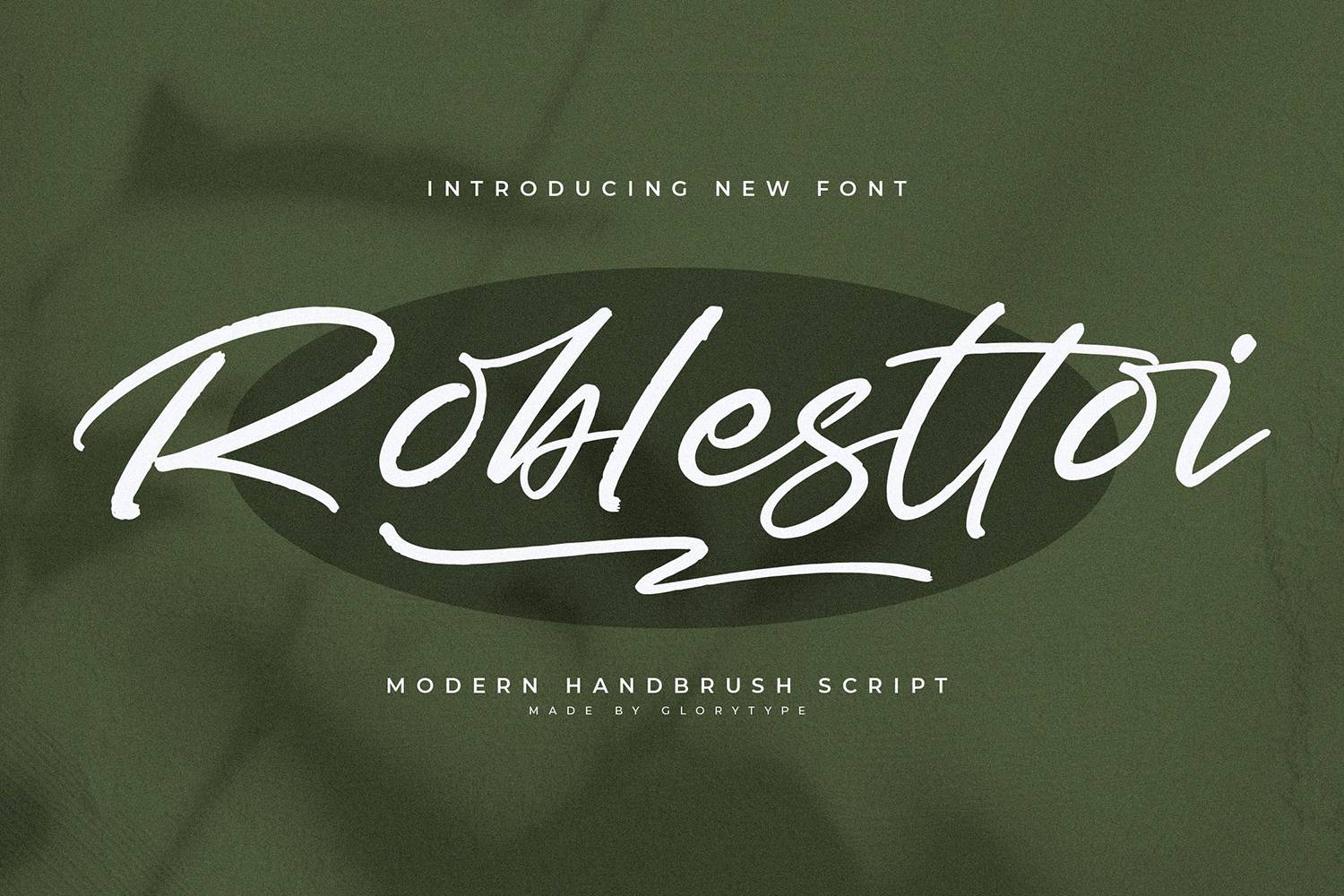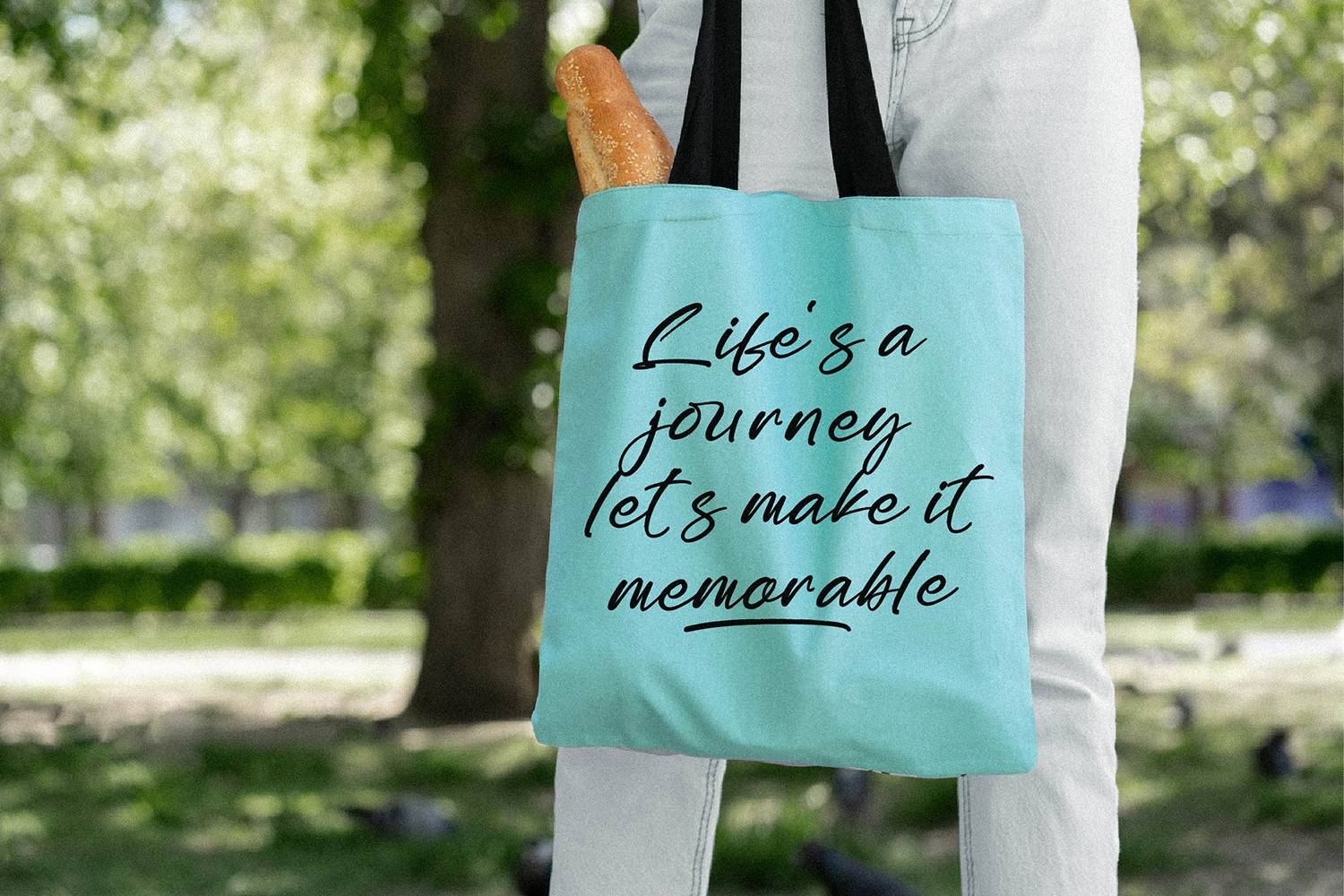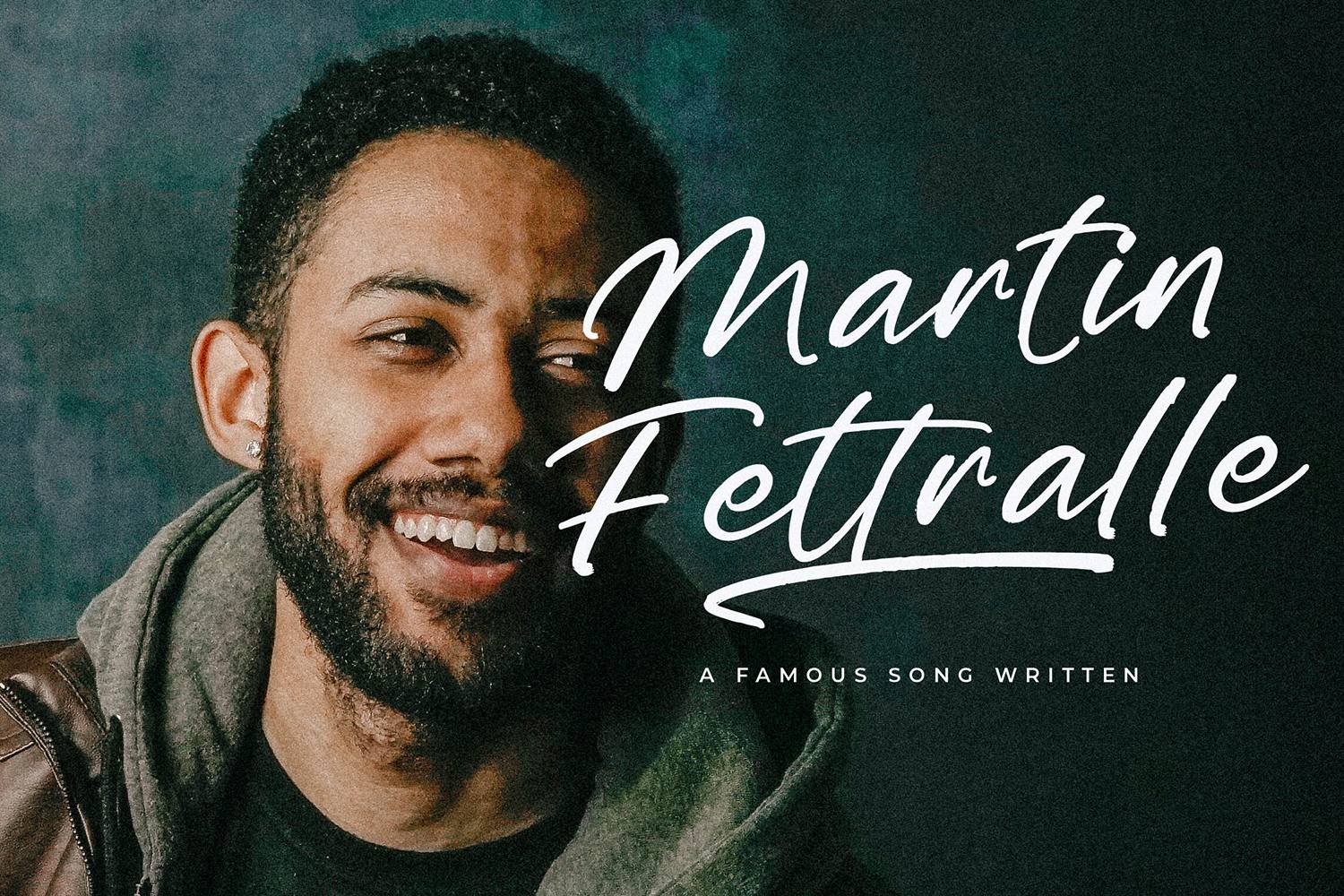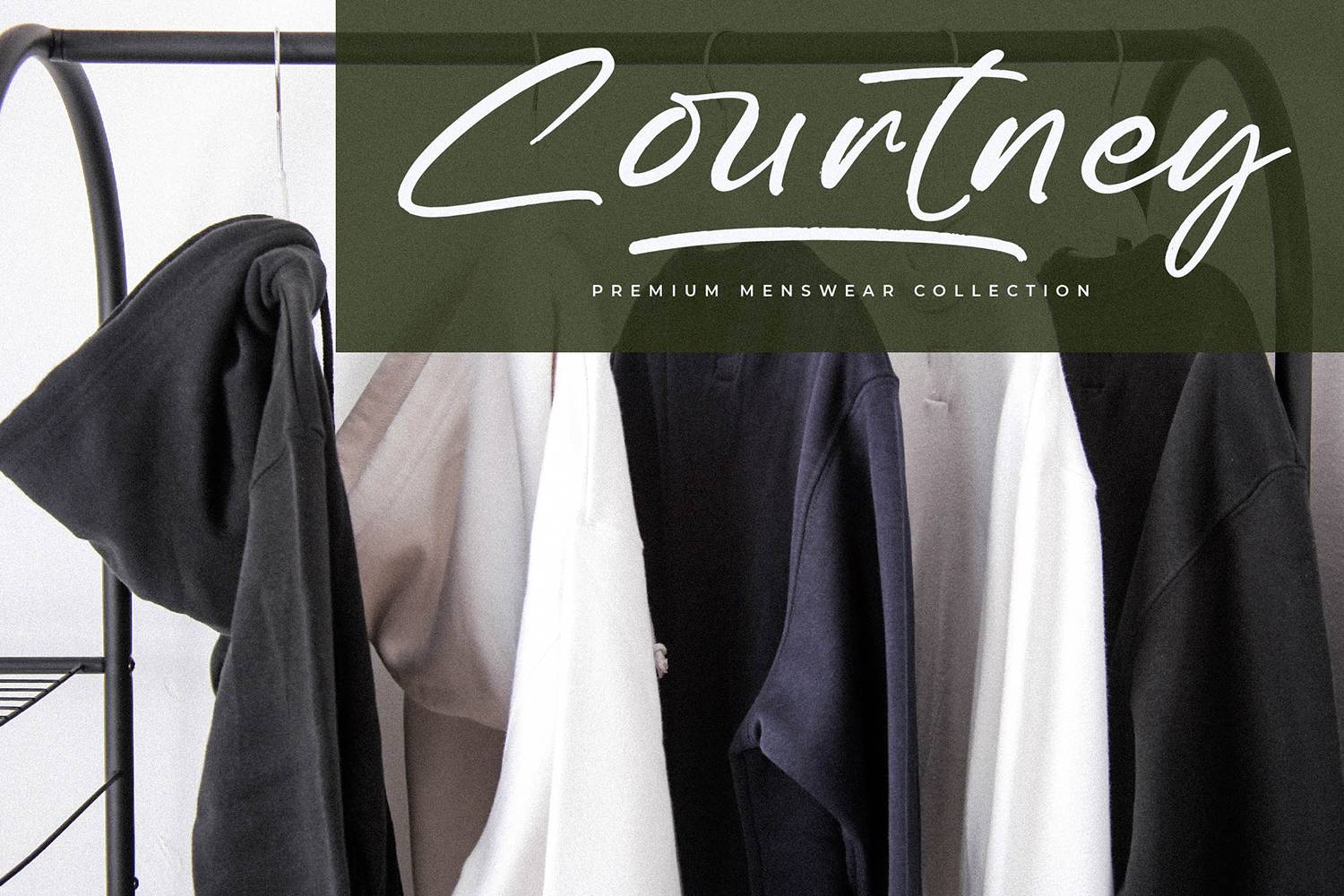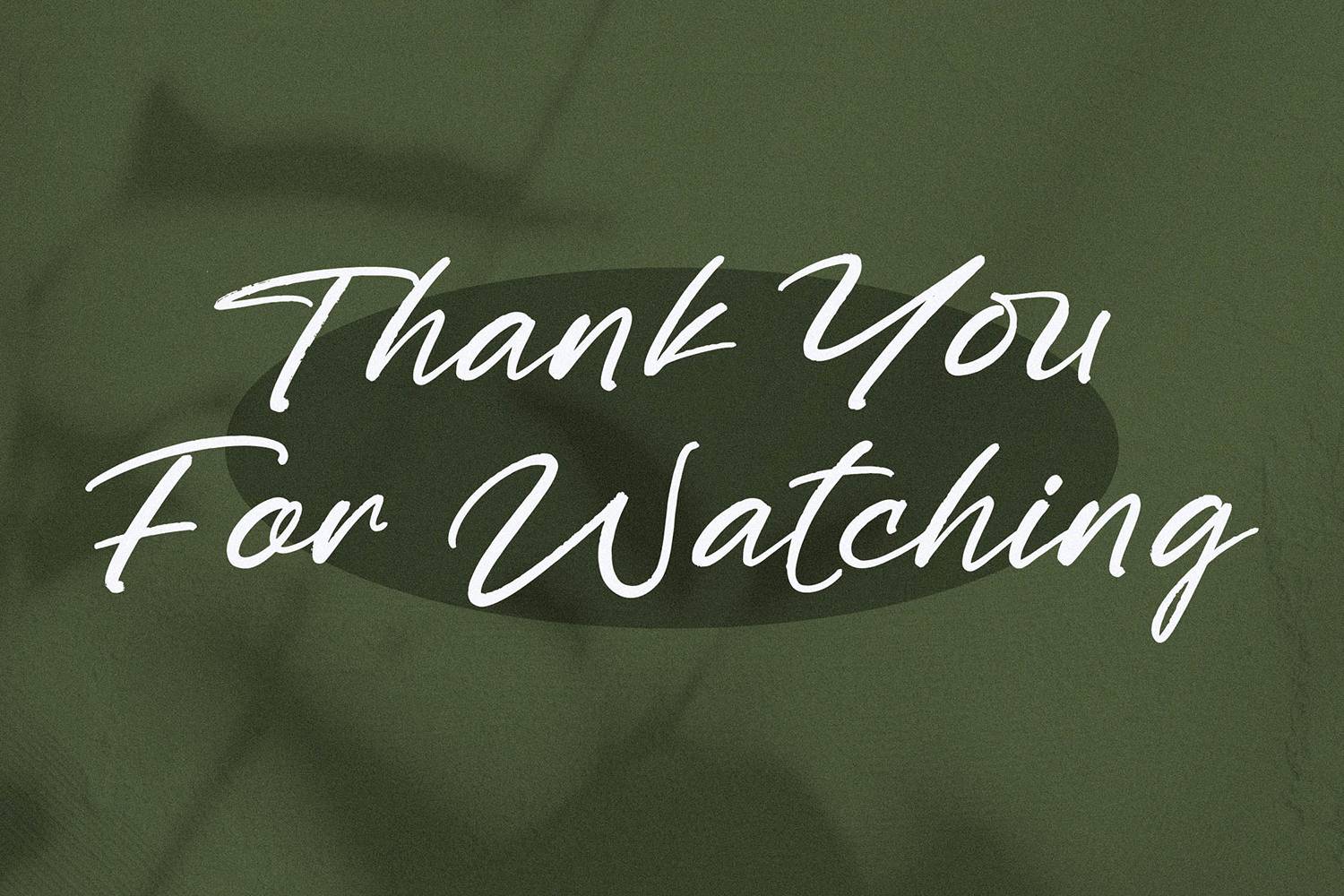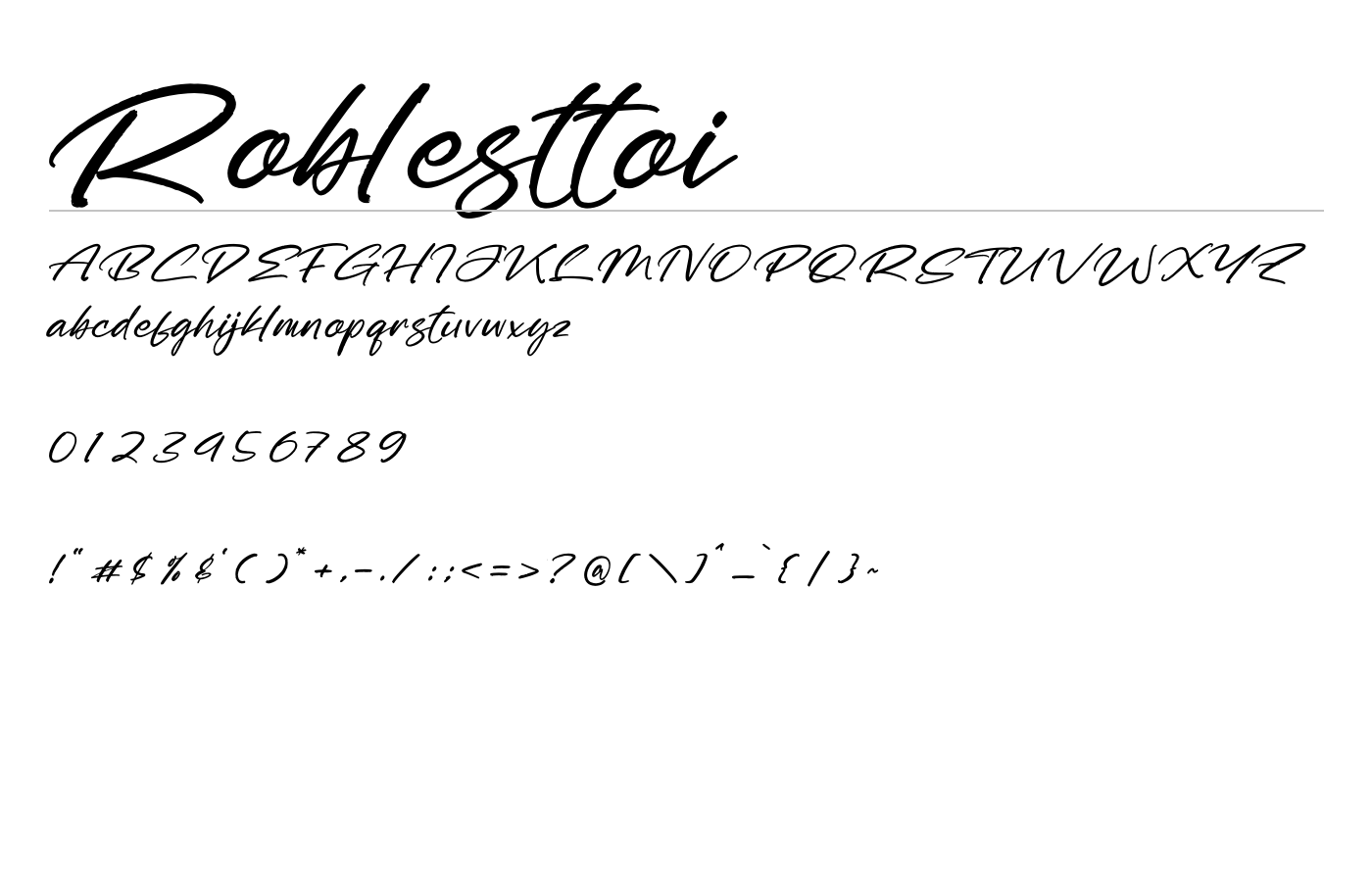
Roblesttoi is a graceful script font with a natural, handwritten feel characterized by smooth, flowing strokes and a moderate contrast in weight. Its elegant, slightly casual style makes it perfect for invitations, branding, and creative projects that seek a personal yet refined touch. This font works well in headlines and logos where a sophisticated, artistic impression is desired.
Roblesttoi Font